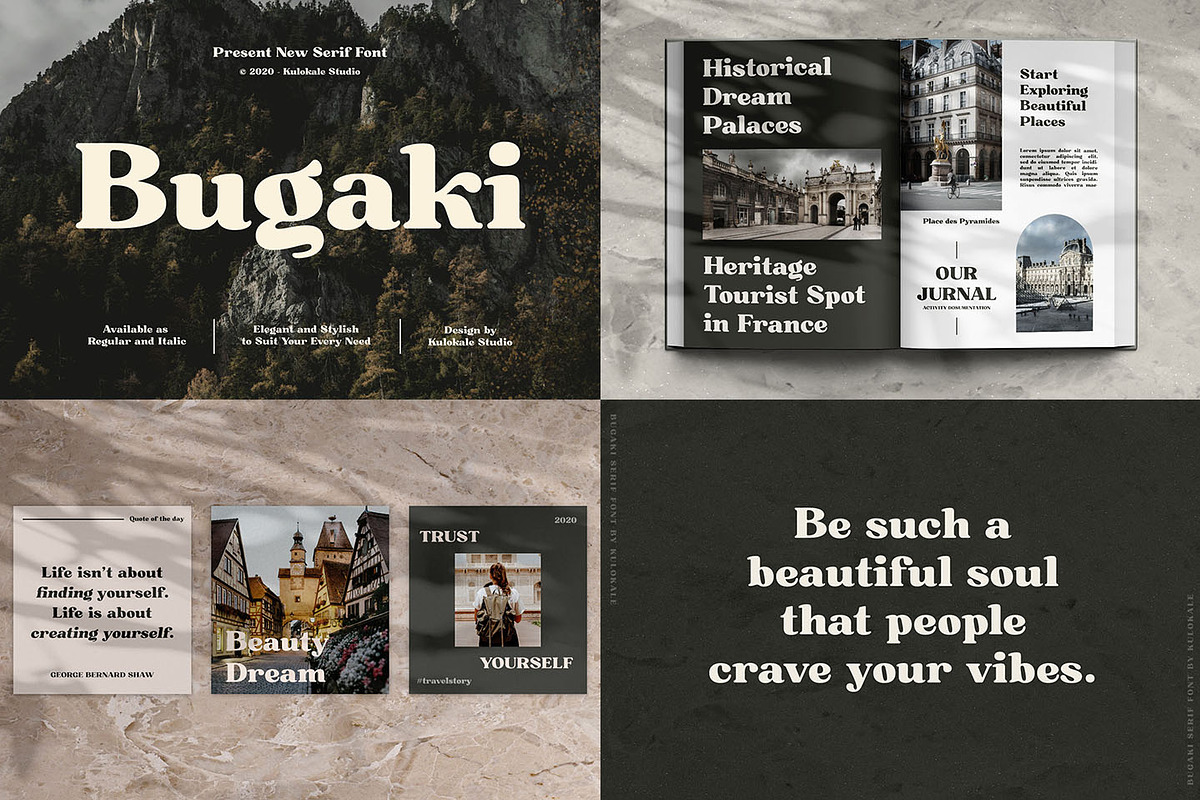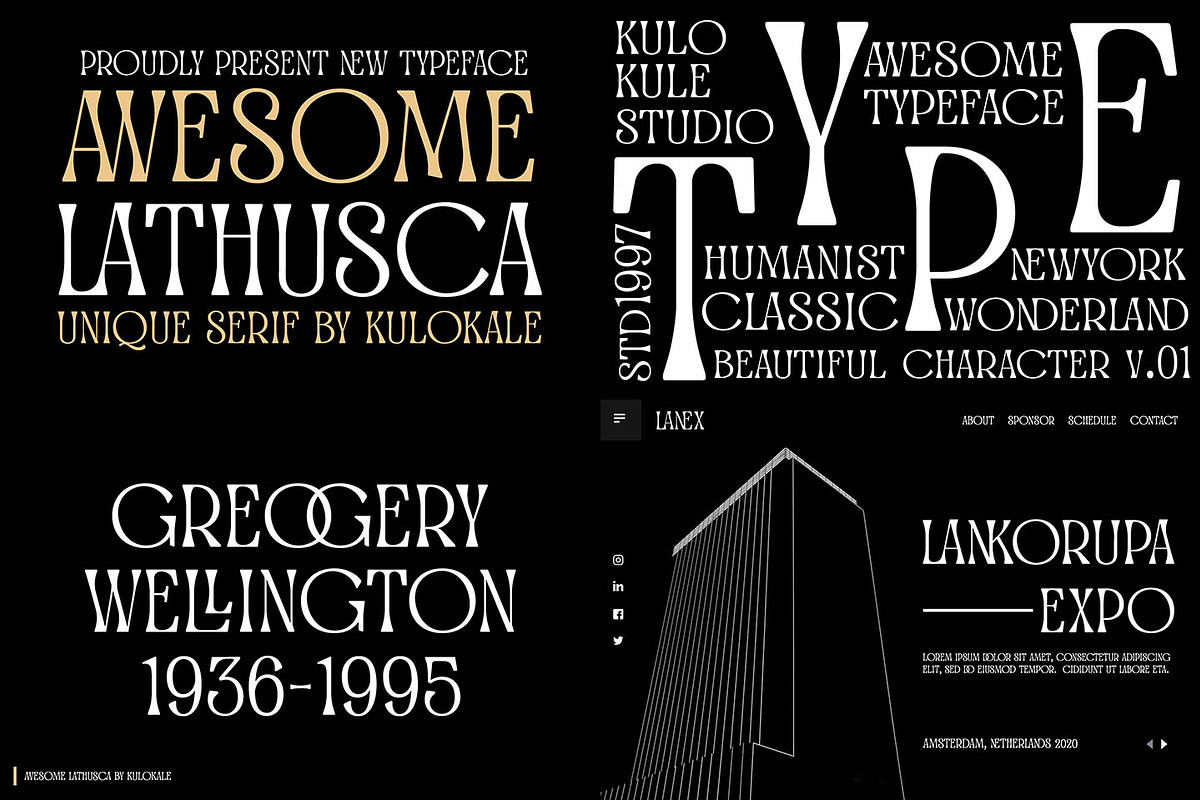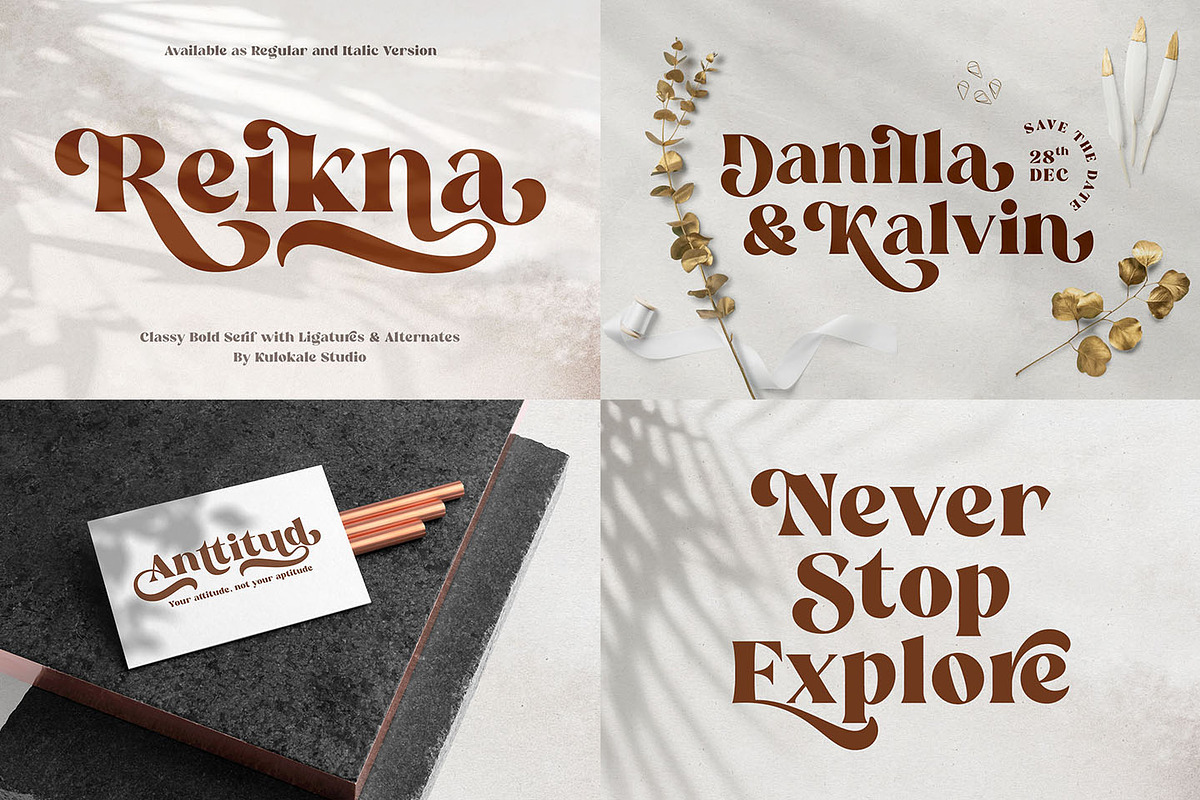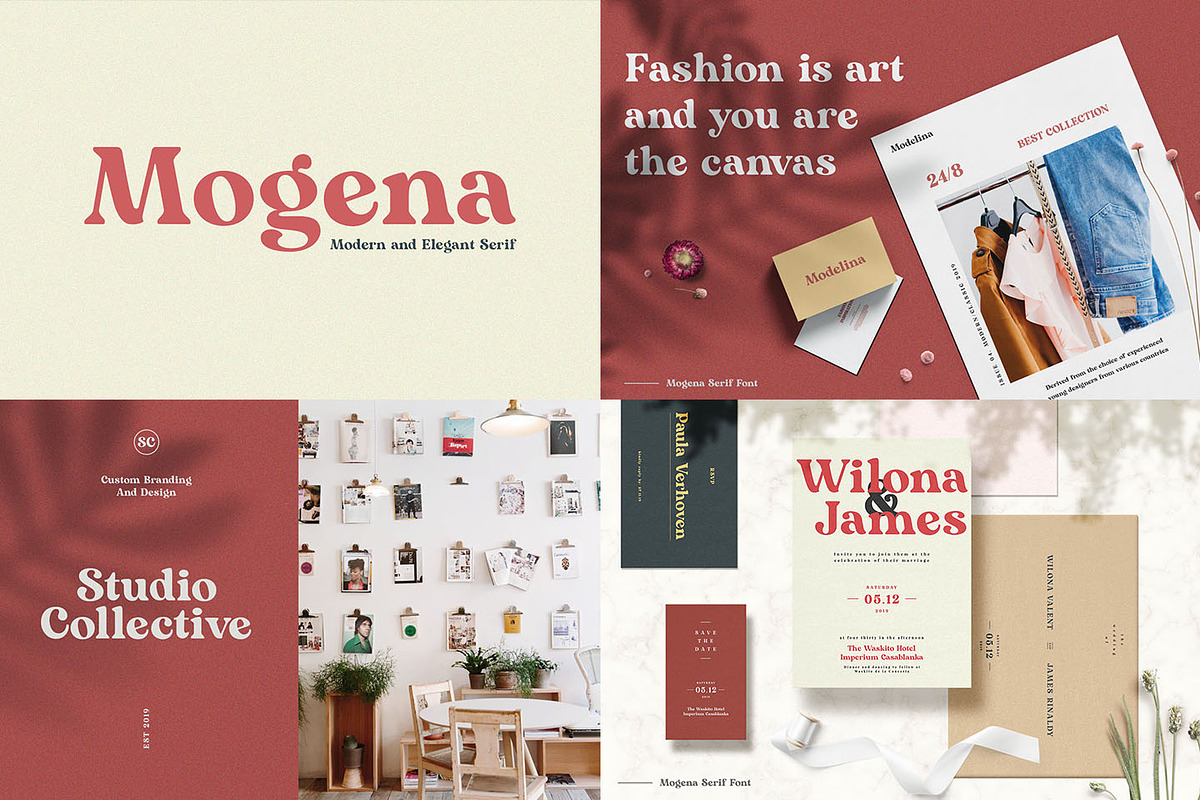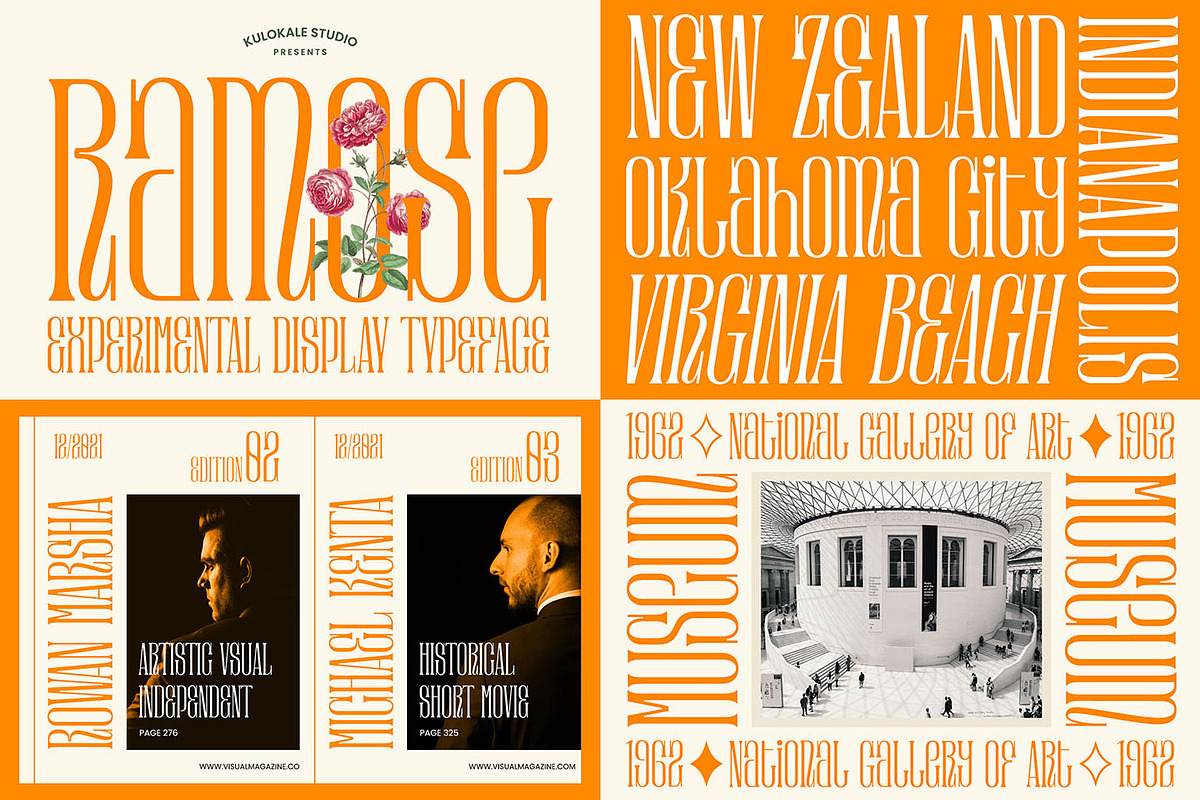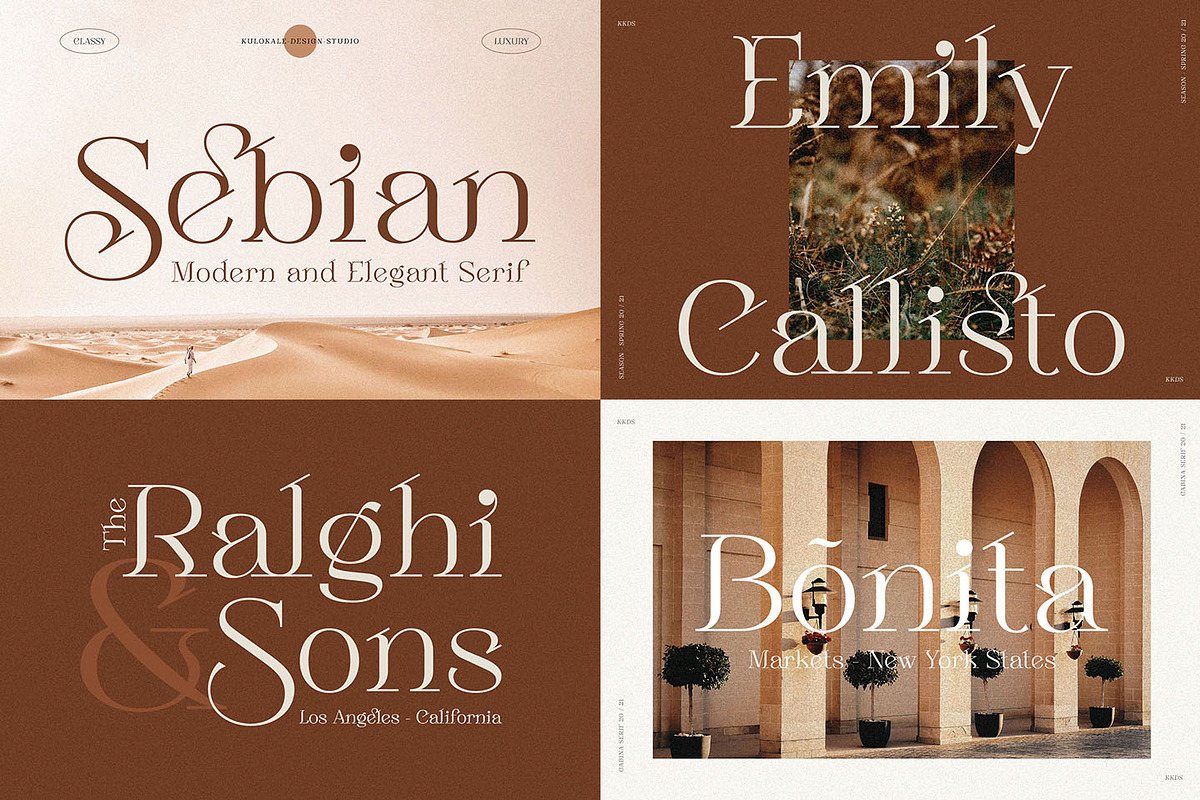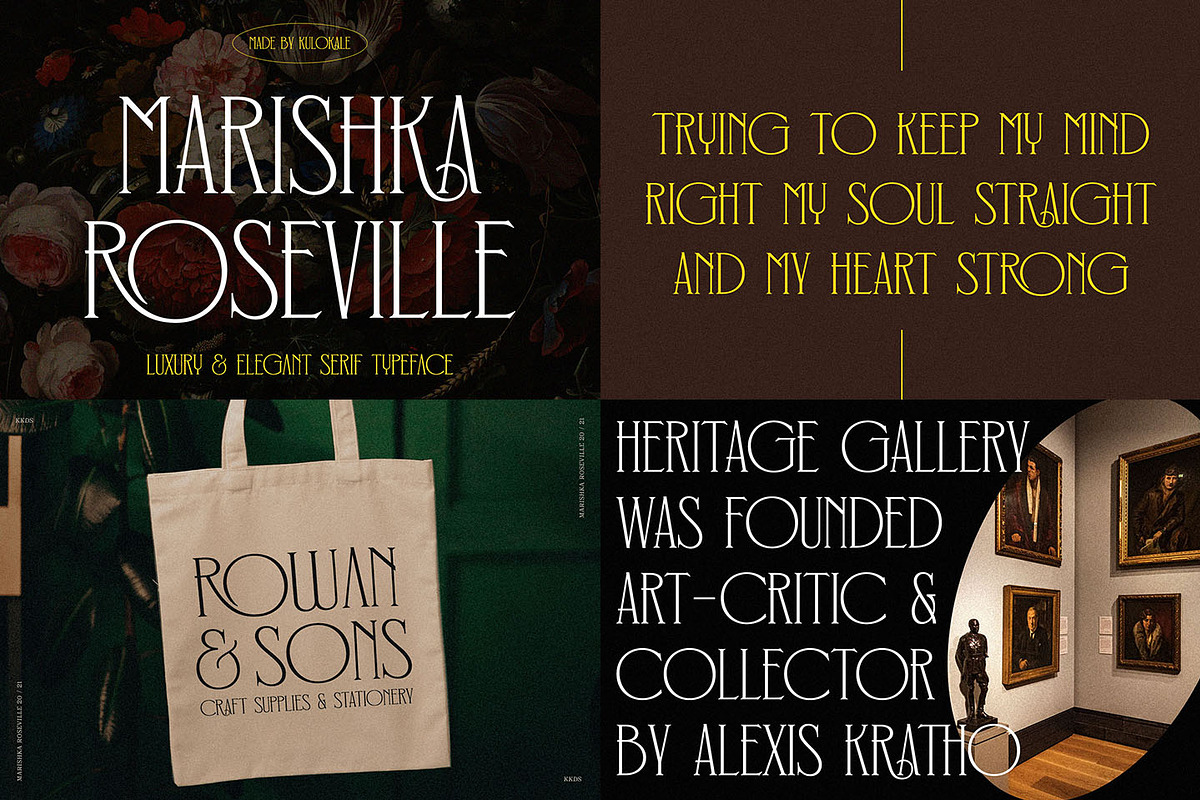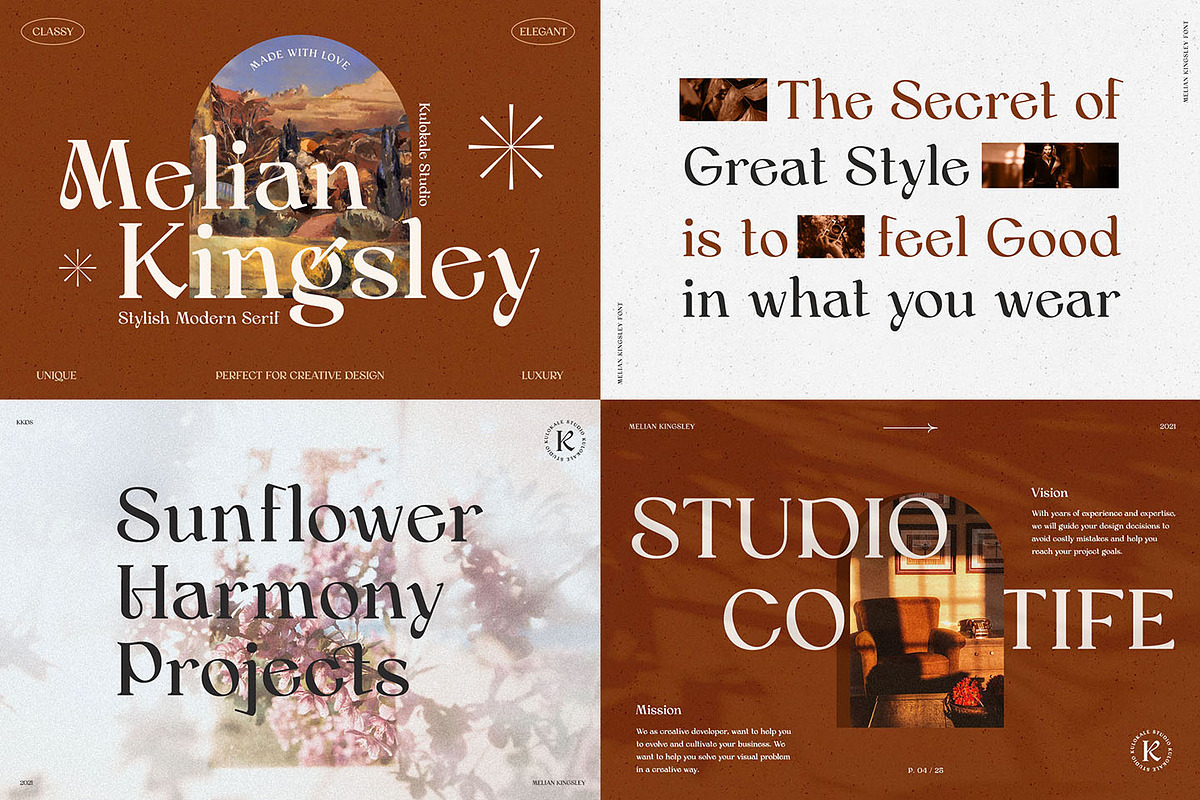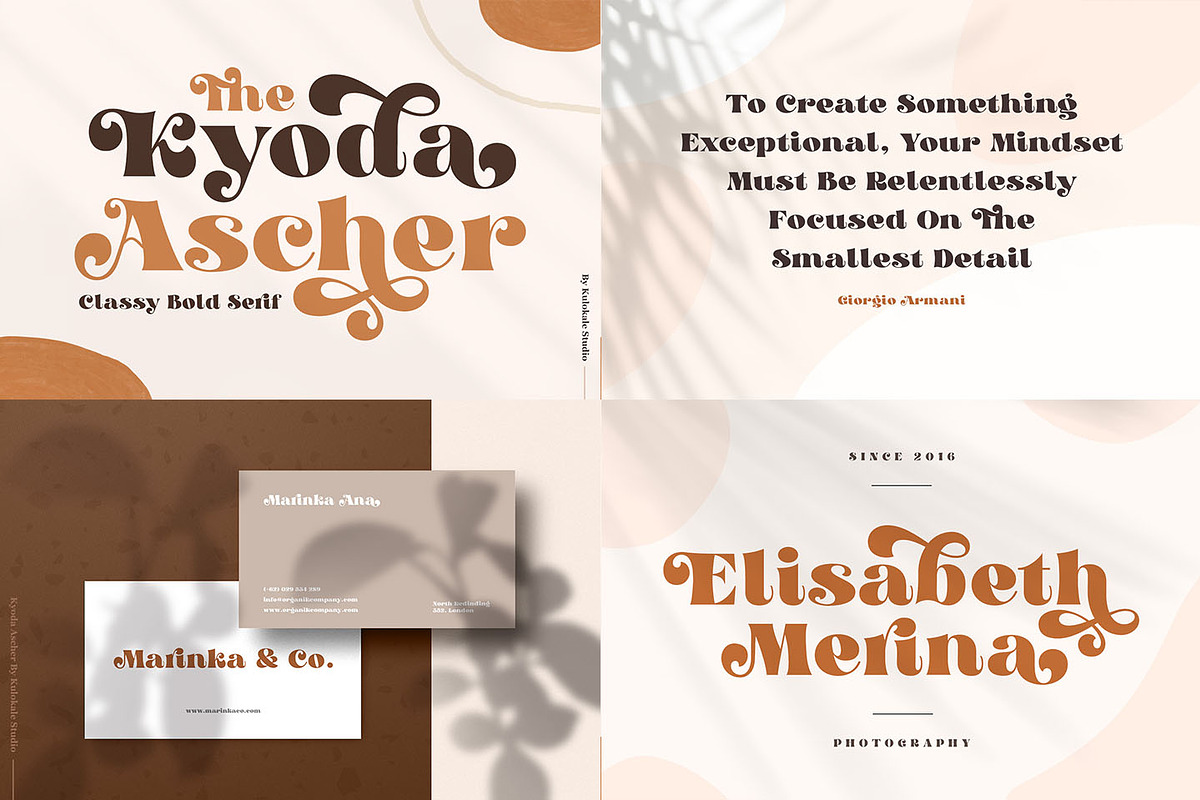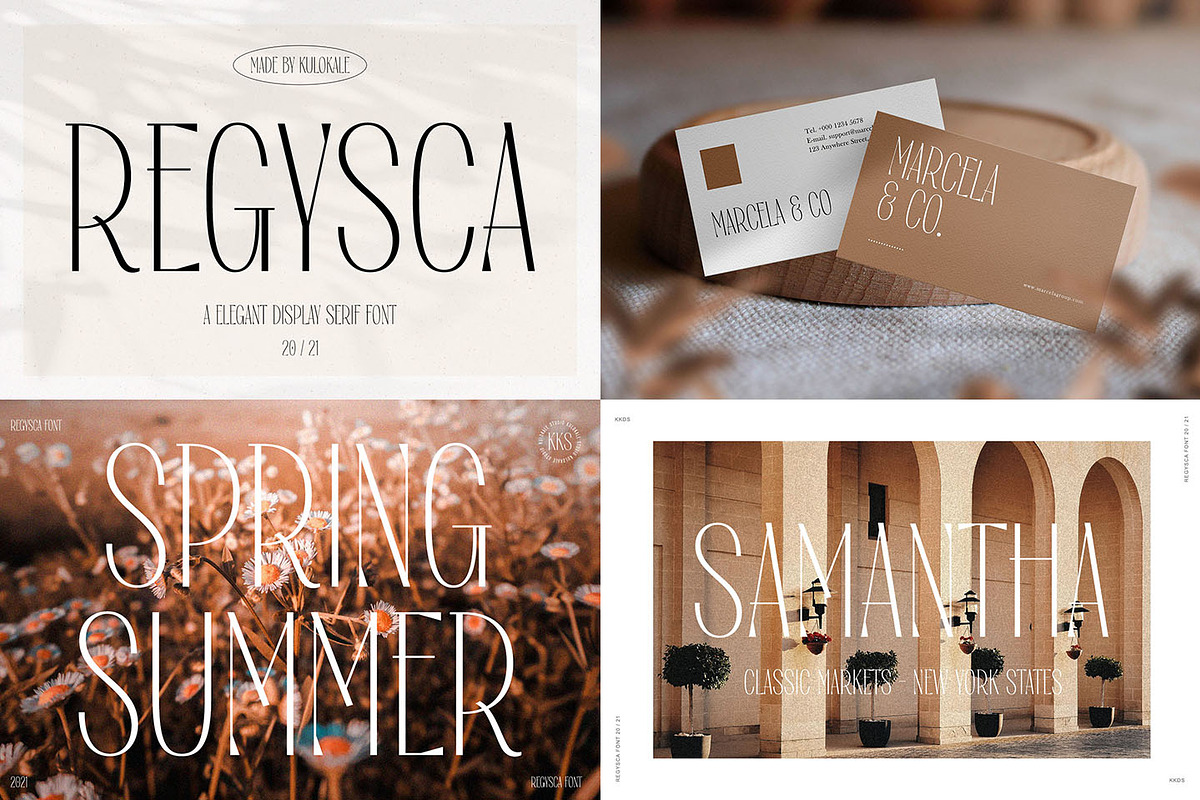
This bundle contains 12 font families. These fonts are all display fonts that span the range of vintage, modern, classic, decorative, bold, retro, playful, and elegant. This bundle is well-suited for advertising, branding, logotypes, packaging, titles, headlines and editorial design.
Fonts Included:
- Awesome Lathusca Font https://creativemarket.com/kulokale/5438283-Awesome-Lathusca-Unique-Serif
- Bugaki Font https://creativemarket.com/kulokale/5438247-Bugaki-Elegant-Serif-Font
- Karimun Font https://creativemarket.com/kulokale/4264209-Karimun-Modern-Serif-Font
- Kyoda Ascher Font https://creativemarket.com/kulokale/4766623-Kyoda-Ascher
- Marishka Roseville Font https://creativemarket.com/kulokale/6361502-Marishka-Roseville-Serif-Font
- Melian Kingsley Font https://creativemarket.com/kulokale/5971001-Melian-Kingsley-Modern-Serif
- Mogena Font https://creativemarket.com/kulokale/4256286-Mogena-Modern-Serif-Font
- Ramose Font https://creativemarket.com/kulokale/6538501-Ramose-Serif-Display-Font
- Regas Font https://creativemarket.com/kulokale/6501799-Regas-Classic-Display-Serif-Font
- Regysca Font https://creativemarket.com/kulokale/6598118-Regysca-Elegant-Modern-Serif-Font
- Reikna Font https://creativemarket.com/kulokale/4602781-Reikna-Classy-Bold-Serif
- Sebian Serif https://creativemarket.com/kulokale/5953196-SALE-Sebian-Elegant-Serif-Font